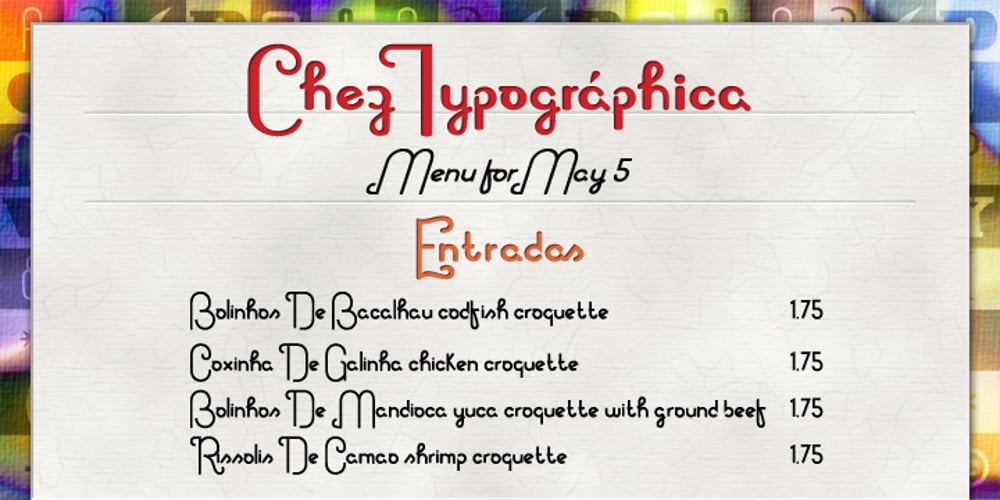
Invites
Invites font
Invites Font Family was designed by Randy Harris and published by Just My Type. Invites contains 4 styles and family package options. Invites is a digital recreation of a 1920’s mechanical script that has never existed. I designed it for my wedding invitations last year and named it in honor of my (ex)wife. Who said it wasn’t her. And she was right. So now it’s called something different. I wanted a sweet, romantic name … Iris? Taken. Lily? Taken. Iris Lily? Cumbersome. I wanted something short and inviting. Uh … hmmm.